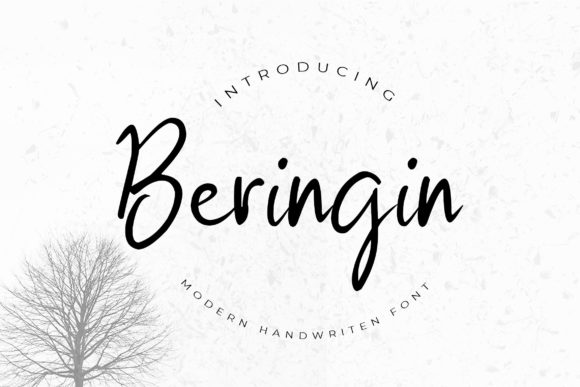
The Elegance of Beringin Font: A Designer’s Delight
I’ll never forget the time I was working on a wedding invitation project, and my client asked for a font that exuded elegance and sophistication. I scoured the internet, tried countless fonts, but nothing seemed quite right. That was until I stumbled upon Beringin Font. With its impeccable form and contemporary atmosphere, it was love at first sight! In this article, I’ll share my experience with Beringin Font, its features, and how to make the most of it in your designs.
A Personal Review: What I Love About Beringin Font
Beringin Font has quickly become one of my go-to fonts for elegant and sophisticated designs. Here are some things I love about it:
- ✨ Balanced and varied: Beringin Font strikes the perfect balance between not being too thin and not too thick. This makes it versatile and suitable for a wide range of projects.
- ✅ Timeless classic calligraphy feel: The font’s classic calligraphy inspiration gives it a timeless feel that works well for projects that require a touch of elegance.
- 💫 Contemporary atmosphere: Despite being inspired by classic calligraphy, Beringin Font has a contemporary atmosphere that makes it perfect for modern designs.
While Beringin Font is an excellent choice for many projects, there are a few quirks to be aware of:
- 🤔 Limited use for body text: Due to its elegant and cursive nature, Beringin Font may not be the best choice for body text. It’s better suited for headings, titles, and short paragraphs.
- ⚠️ Requires attention to spacing: As with any script font, Beringin Font requires attention to spacing to ensure it looks its best. You may need to adjust the tracking and kerning to achieve the desired effect.
- Explore the OpenType features, such as glyphs and stylistic alternates, to add more creativity to your design.
Beringin Font comes with a range of OpenType features and glyphs that can enhance your designs. Here are some tips on how to access and use them:
- Stylistic alternates: These allow you to switch between different font styles, such as swashes and alternate characters.
- Glyphs: These are special characters that can add more creativity to your design, such as ligatures and ornaments.
The Story Behind Beringin Font
Beringin Font was designed with the goal of creating a elegant script font that combines classic calligraphy with a contemporary atmosphere. The designer aimed to create a font that’s not too thin and not too thick, but balanced and varied. The result is a font that’s perfect for designs that require a touch of sophistication and elegance.
| What is Beringin Font? | Beringin Font is an elegant script font with a contemporary atmosphere and impeccable form, inspired by timeless classic calligraphy. |
| What is Beringin Font best used for? | Beringin Font is best used for designs that require a touch of elegance and sophistication, such as wedding invitations, luxury branding, and formal events. |
| Can I use Beringin Font for body text? | No, Beringin Font is not recommended for body text due to its elegant and cursive nature. It’s better suited for headings, titles, and short paragraphs. |
| Is Beringin Font available in different styles? | Yes, Beringin Font comes with a range of OpenType features and glyphs that allow you to switch between different font styles and add more creativity to your design. |